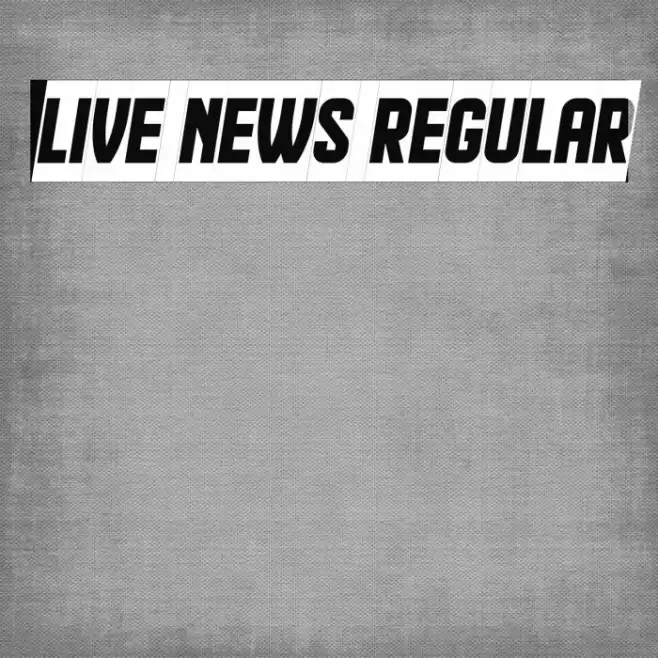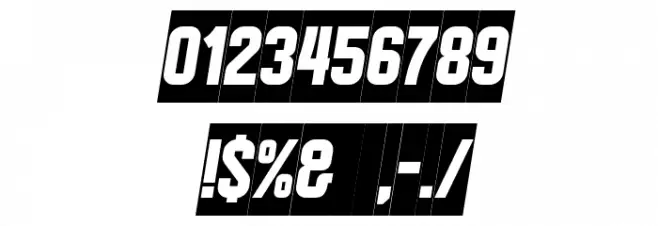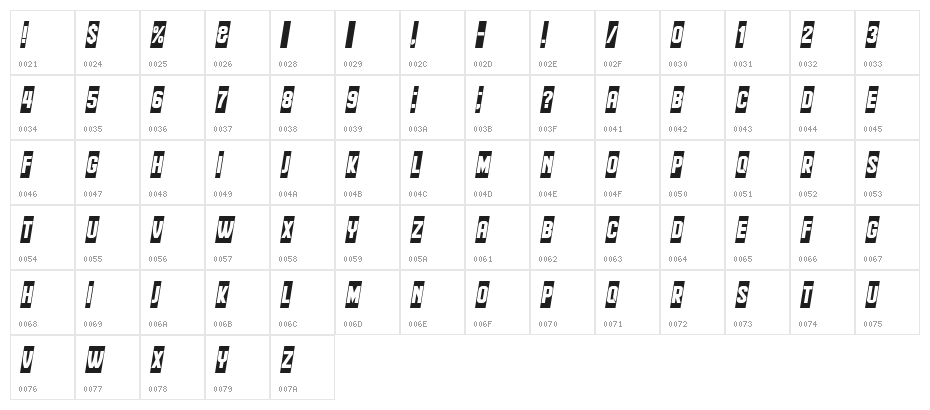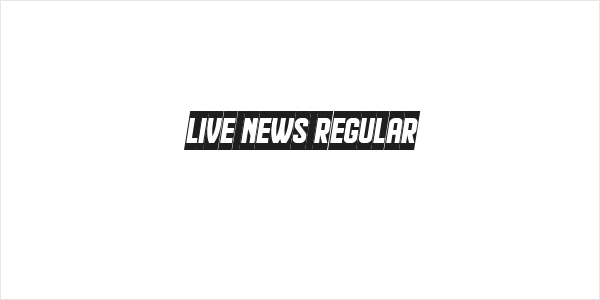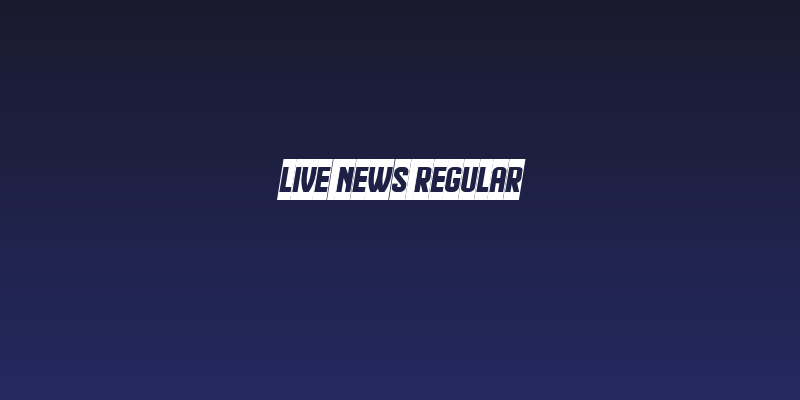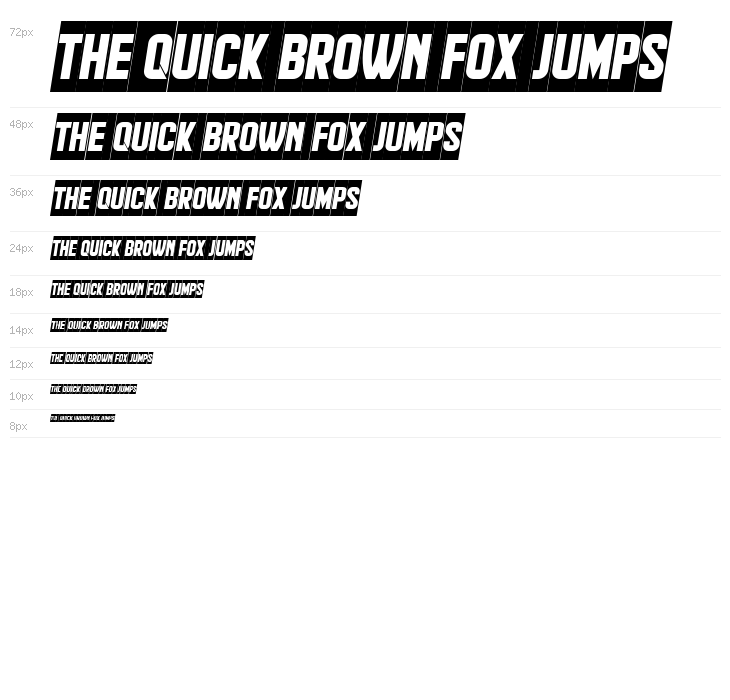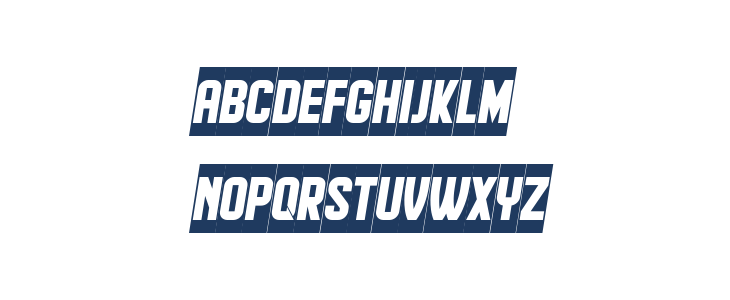
Live News Regular Font
Live News Regular Description
This font features a bold and dynamic style with a strong presence, characterized by its thick, angular strokes and slightly condensed letterforms. The uppercase letters are particularly striking, with a modern and assertive appearance that commands attention. The numerals and special characters maintain the same boldness, ensuring consistency across all elements. The font's design is clean and impactful, making it suitable for high-visibility applications where readability and a strong visual impact are essential.
- Proposed Projects: Ideal for headlines, sports branding, posters, and any project requiring a strong, impactful typeface.